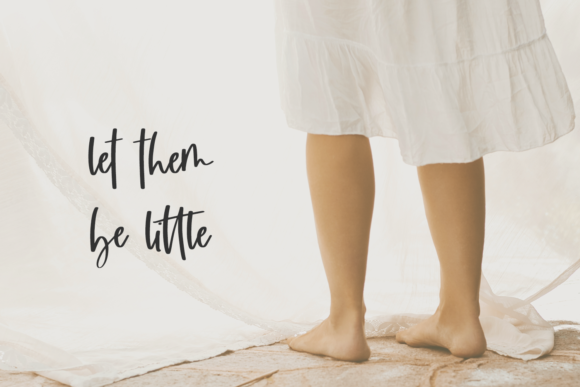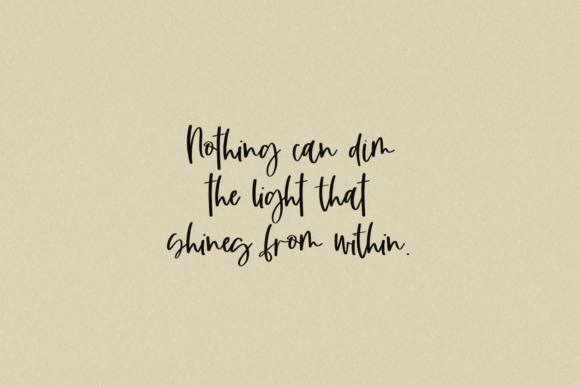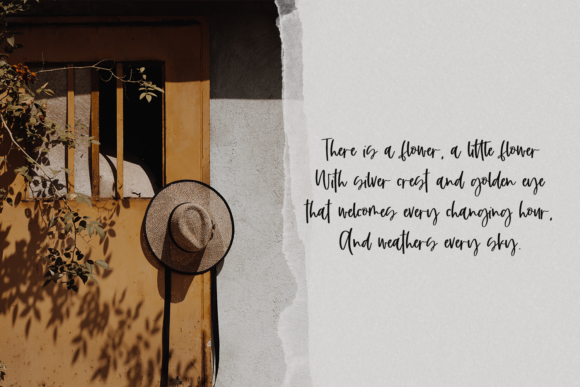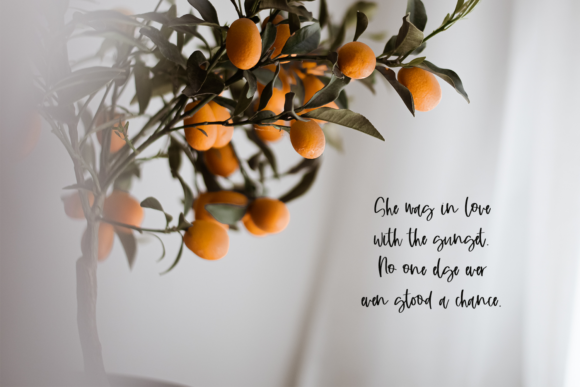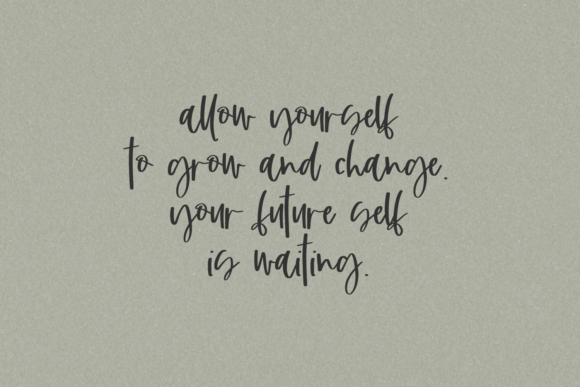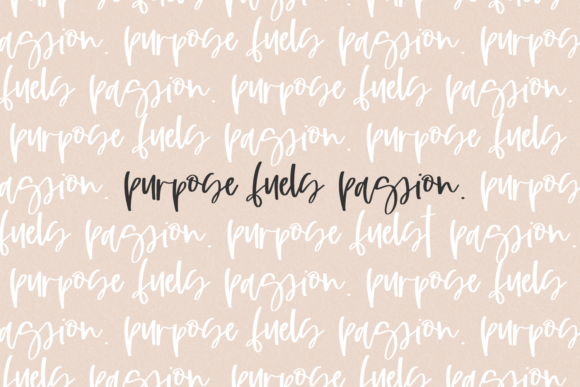
Honeylight Font
About Honeylight Font
Honeylight is a stylish and incredibly elegant script font. It looks stunning on wedding invitations, thank you cards, quotes, greeting cards, logos, business cards and every other design which needs a handwritten touch.